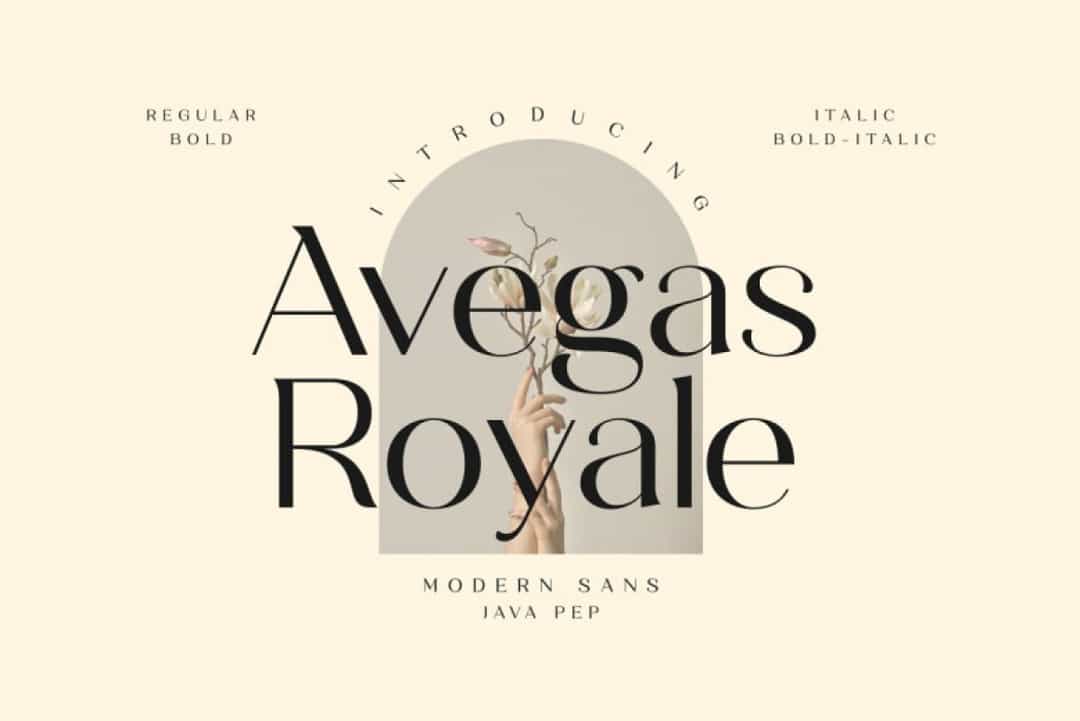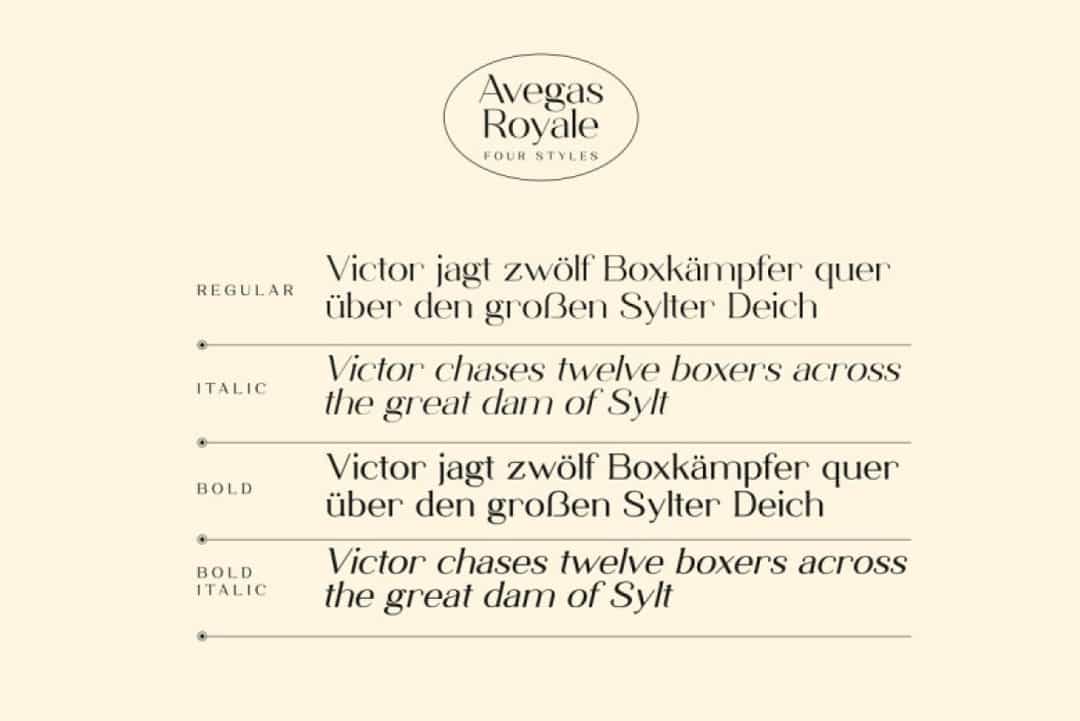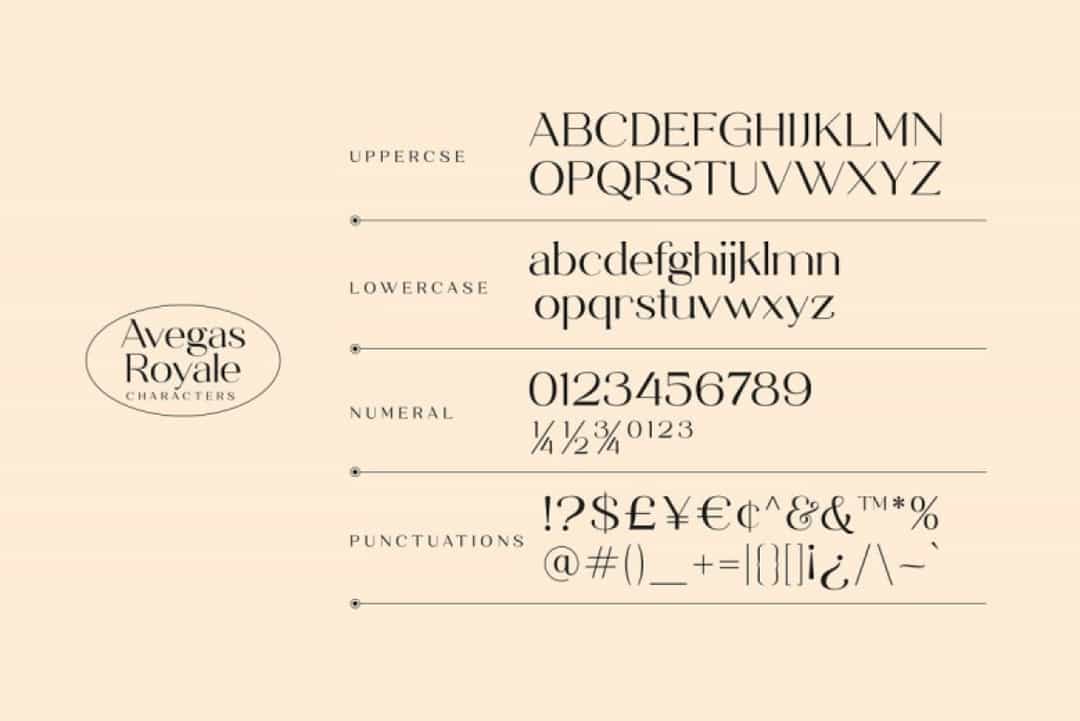
Avegas Royale is a modern font with four styles: bold, regular, italic and bold-italic. The design creates contrast between thin lines and light curves for added attraction; perfect for headlines, logos advertising campaigns, quotes invitation cards branding identity purposes etc.